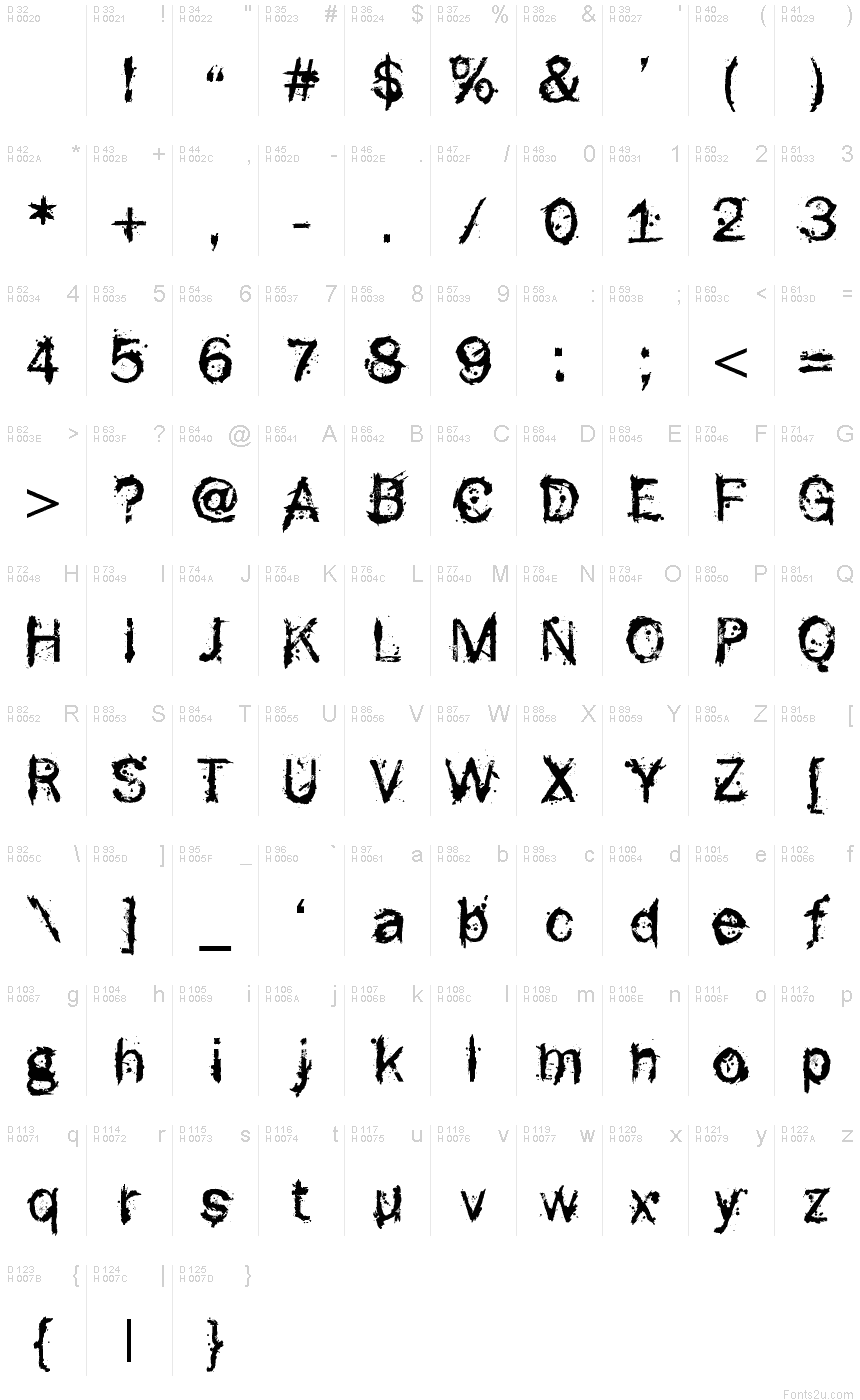
F-Rotten Font
F-Rotten font is a free distorted display typeface that looks like it was dragged through wet ink and left to decay. Each letter is scraped, splattered, and ragged at the edges, creating a grimy, rotten texture that feels straight out of a horror zine or basement gig flyer. The irregular spacing and splashes of black give your words a noisy, chaotic presence that’s hard to ignore.
Using F-Rotten, you can push horror posters, Halloween invites, metal band logos, game titles, escape-room branding, and gritty album covers into full-on splatter territory. This free font thrives at larger sizes where every smear and speck stays visible, so keep body text in a cleaner sans and let F-Rotten handle the loud headlines.